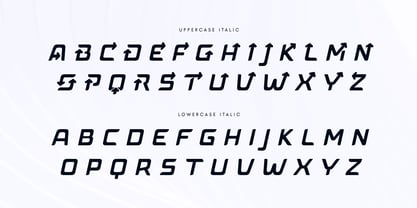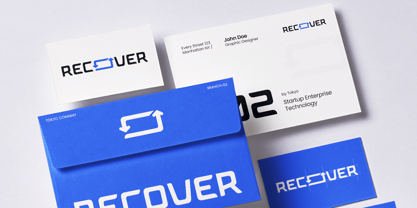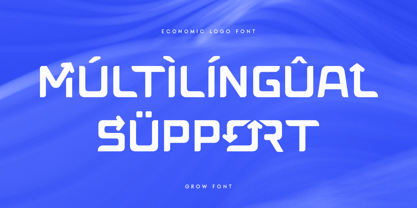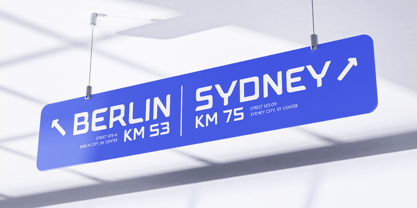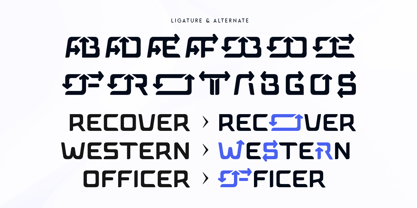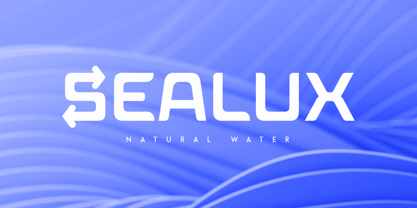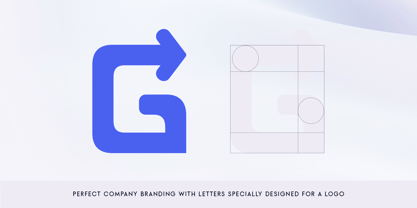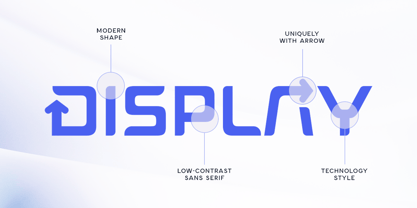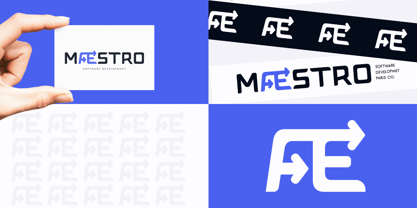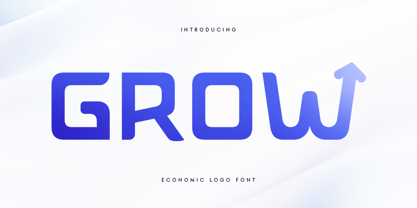
Grow SS
by Sensatype Studio
The Grow SS Font Family was designed by Zamroni Hamzah and published by Sensatype Studio. Grow SS contains 2 styles and family package options.
Grow is a font created with the modern business landscape in mind. Its clean and professional design makes it perfect for companies looking to make a strong, reliable impression. Whether you're building a brand identity, creating a logo, or designing corporate materials, Grow provides the right balance of elegance and functionality.
Crafted to reflect economic sensibility, this font is both stylish and practical. Its versatility ensures that it can adapt to a variety of business applications, from digital presentations to printed materials. Grow is not just a font; it's a tool for growth, designed to support businesses in conveying trust and innovation.
With its unique alternative characters and modern feel, Grow helps your business stand out while maintaining a polished and professional image. It’s ideal for companies that value both style and substance in their branding efforts.
Grow Business Logo Font Features:
• Unique Alternative Characters Ready
• Punctuation, Number, and Symbol
• Uppercase and Lowercase
• Multilingual Support
• Opentype Features
Designers: Zamroni Hamzah
Publisher: Sensatype Studio
Foundry: Sensatype Studio